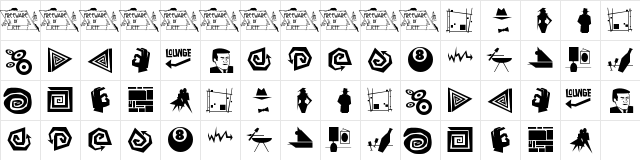
Lounge Lizards Regular
Design Context for Lounge Lizards Typeface
Lounge Lizards is a composed and adaptable typeface that performs quietly and consistently across a wide range of design contexts.